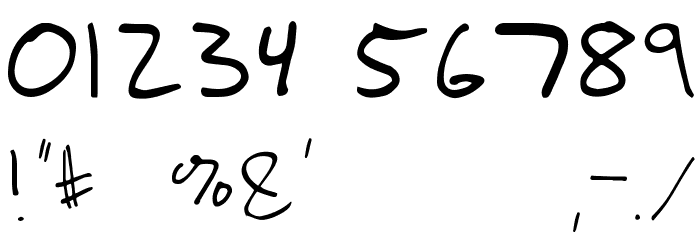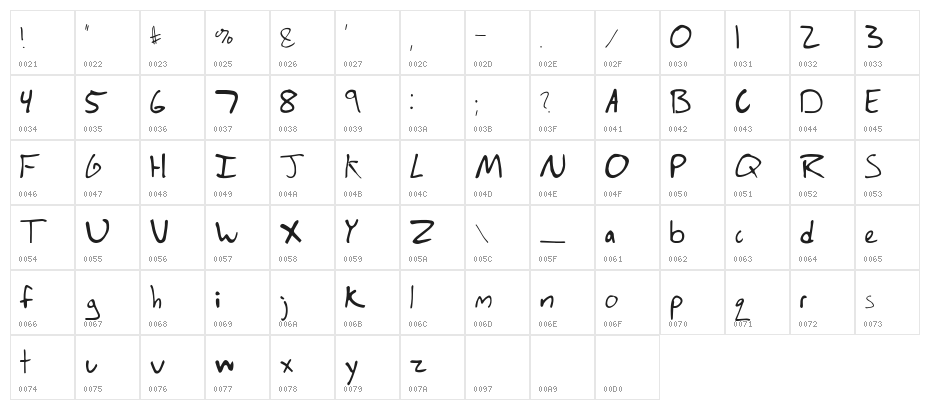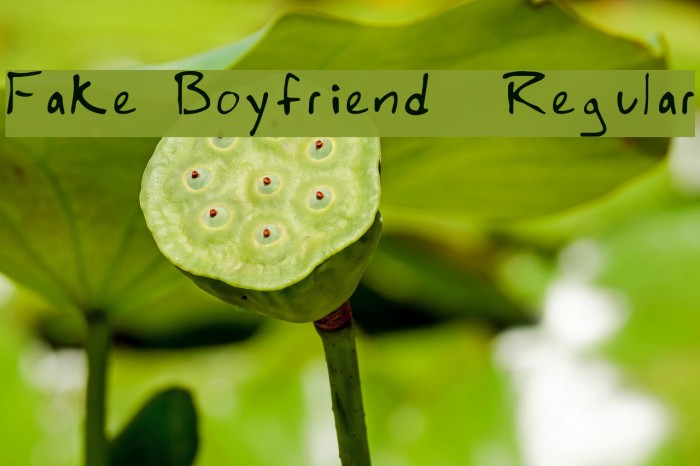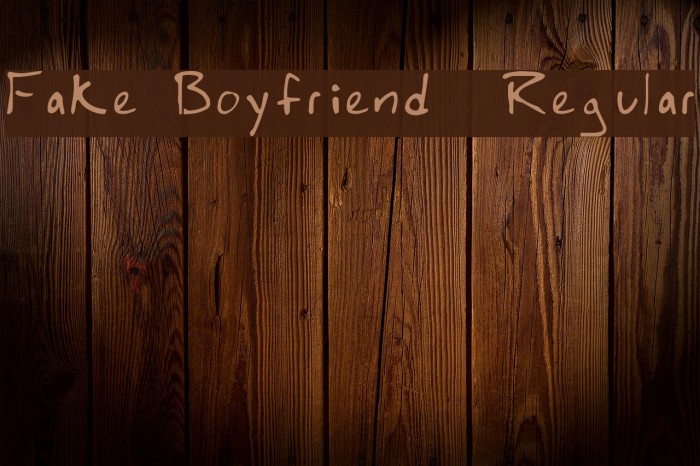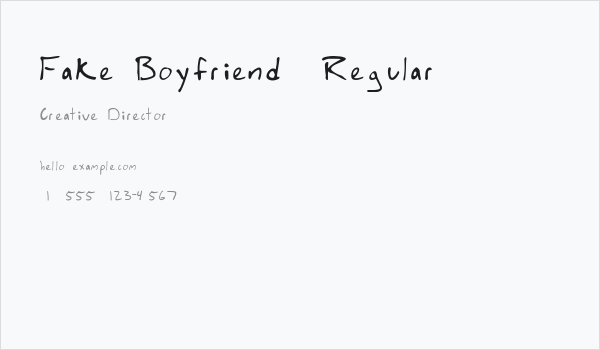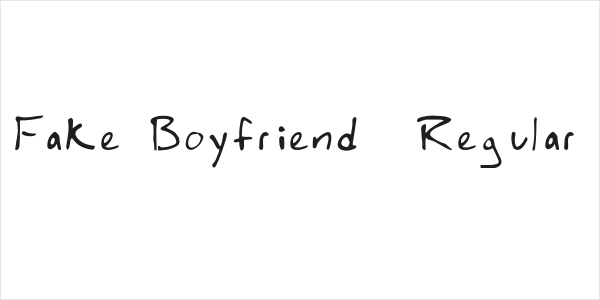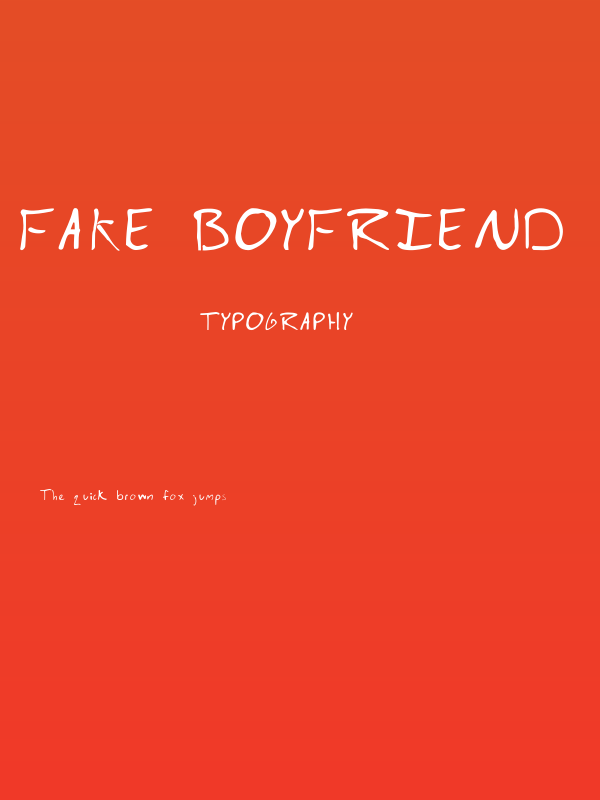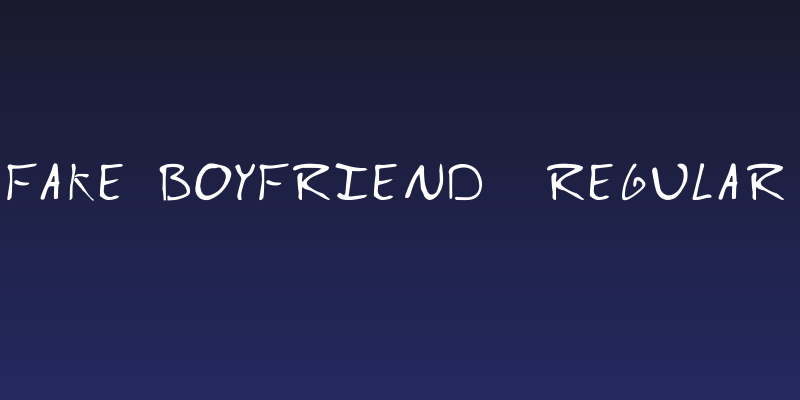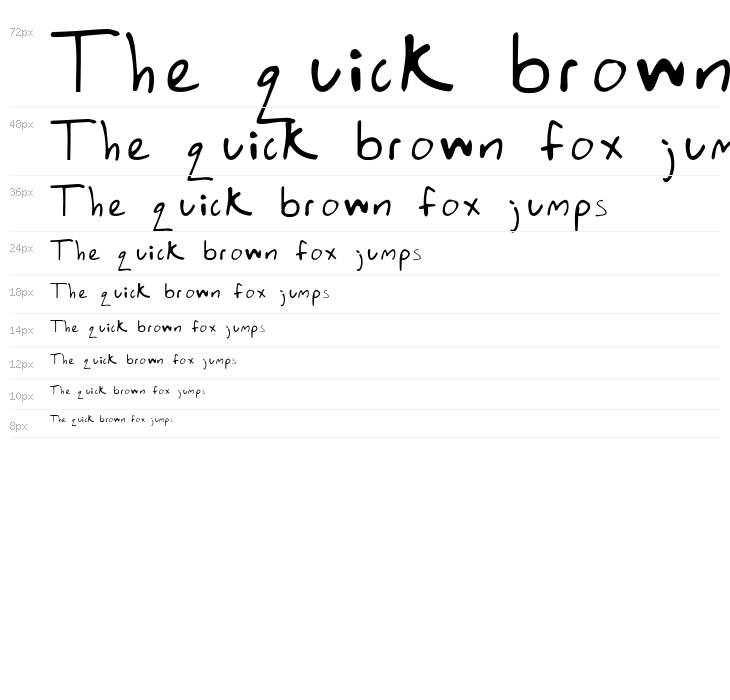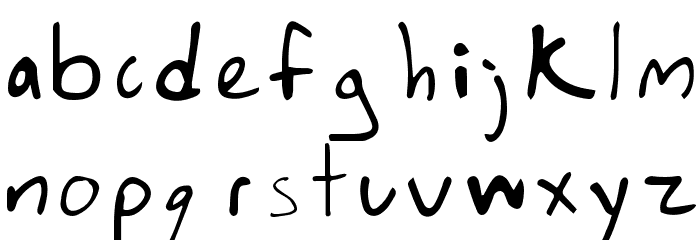
Fake Boyfriend Regular Font
Fake Boyfriend Regular Description
This font features a playful and casual handwritten style, characterized by its irregular and slightly whimsical letterforms. The strokes are uneven, giving it a natural and relaxed appearance, reminiscent of a personal note or a casual doodle. The uppercase letters are bold and slightly larger than the lowercase, which are more rounded and compact. Numbers and special characters maintain the same informal aesthetic, contributing to the overall cohesive look. The font's charm lies in its imperfections, making it ideal for projects that require a personal touch.
| Proposed Projects | Ideal for personal notes, greeting cards, informal invitations, and creative projects that require a personal touch. |